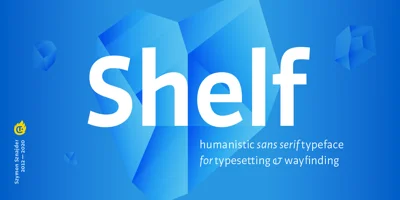
Shelf Font
If you're looking for a clean, modern sans-serif typeface with a minimalist and versatile design, Shelf Font is the perfect choice for your creative projects. This sleek font features simple, geometric letterforms with balanced proportions, making it ideal for logos, branding, packaging, editorial layouts, website headers, and marketing materials that require clarity and sophistication. Its understated elegance works beautifully across a variety of applications.
Shelf Font offers excellent readability both in print and digital formats, making it suitable for headlines, subheadings, and body text. It includes multilingual support and a range of glyphs, giving designers flexibility to create polished, professional typography. Whether you're building a modern brand identity or crafting clean promotional graphics, this font delivers style, function, and simplicity.